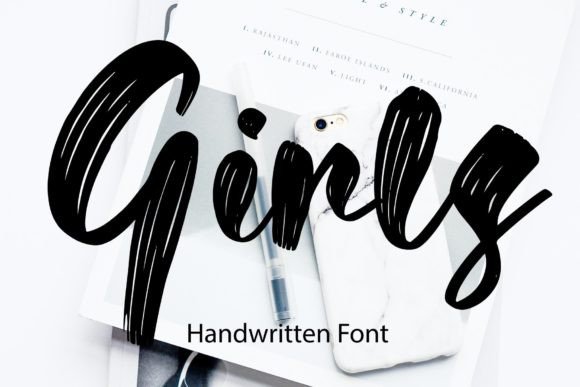
Girls Font: The Ultimate Handwritten Font for Playful Designs
Are you tired of using the same old fonts for your designs? Do you want to add a touch of playfulness and whimsy to your creations? Look no further than Girls Font, a fun and playful handwritten font that’s perfect for designers and crafters alike. In this article, we’ll explore the features and benefits of Girls Font, and show you how to use it to create inviting designs that stand out from the crowd.
What is Girls Font?
Girls Font is a beautiful handwritten font that’s designed to add a personal touch to your designs. With its playful and cursive script, it’s perfect for creating wedding invitations, birthday cards, branding materials, advertising, logos, and more. The font is highly legible and versatile, making it suitable for a wide range of design projects.
Key Features of Girls Font
- Handwritten script: Girls Font features a beautiful handwritten script that’s perfect for creating personal and inviting designs.
- Playful and cursive: The font has a playful and cursive style that’s sure to add a touch of whimsy to your designs.
- Highly legible: Despite its playful style, Girls Font is highly legible and easy to read, making it perfect for body text and headlines.
- Versatile: Girls Font is suitable for a wide range of design projects, from wedding invitations to branding materials and advertising.
Benefits of Using Girls Font
So why should you use Girls Font for your designs? Here are just a few benefits of using this amazing font:
- Adds a personal touch: Girls Font adds a personal touch to your designs, making them more inviting and engaging.
- Stand out from the crowd: With its playful and cursive script, Girls Font helps your designs stand out from the crowd and grab attention.
- Perfect for creative projects: Girls Font is perfect for creative projects like wedding invitations, birthday cards, and branding materials.
Inspiration for Using Girls Font
Still not sure how to use Girls Font? Here are a few ideas to get you started:
- Wedding invitations: Use Girls Font to create beautiful and playful wedding invitations that set the tone for the big day.
- Birthday cards: Use Girls Font to create fun and colorful birthday cards that kids and adults will love.
- Branding materials: Use Girls Font to create branding materials like logos, business cards, and brochures that reflect your brand’s playful personality.
- Advertising: Use Girls Font to create eye-catching ads that grab attention and drive sales.
| Font Name | Girls Font |
In conclusion, Girls Font is a fun and playful handwritten font that’s perfect for designers and crafters alike. With its highly legible and versatile script, it’s suitable for a wide range of design projects. Whether you’re creating wedding invitations, birthday cards, branding materials, or advertising, Girls Font is the perfect choice. So why wait? Download Girls Font today and start creating inviting designs that stand out from the crowd!